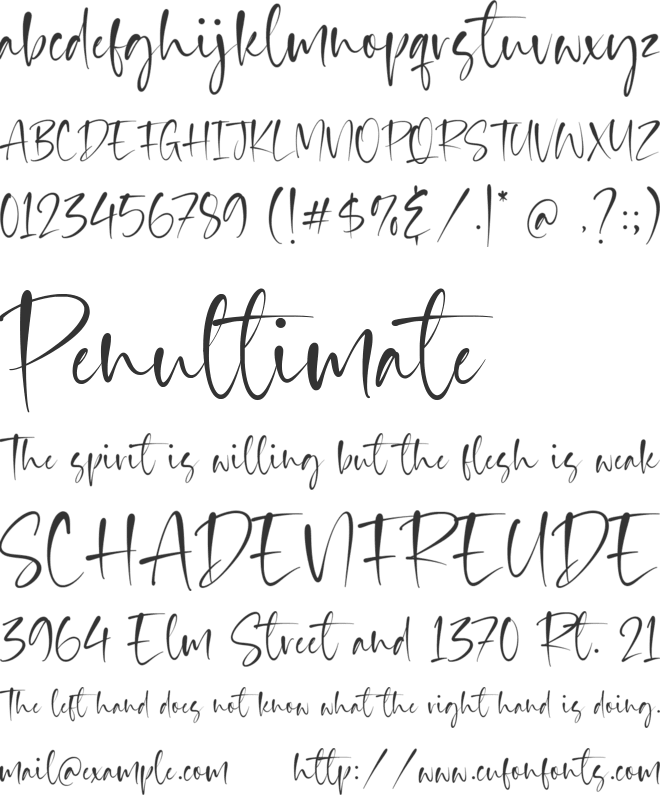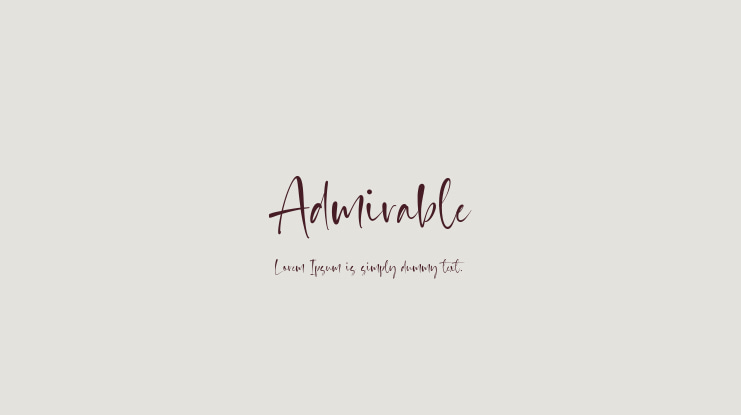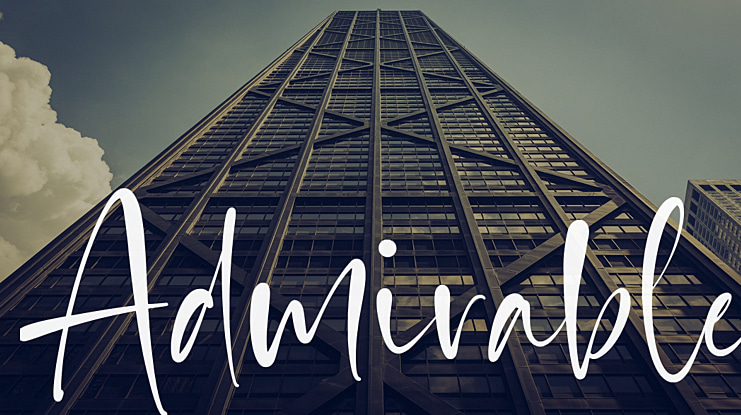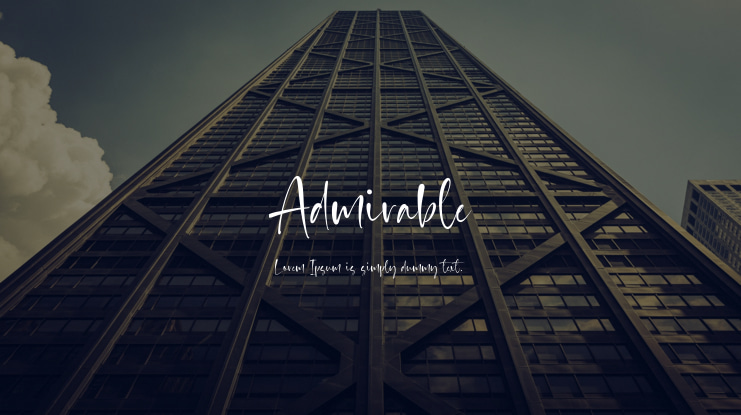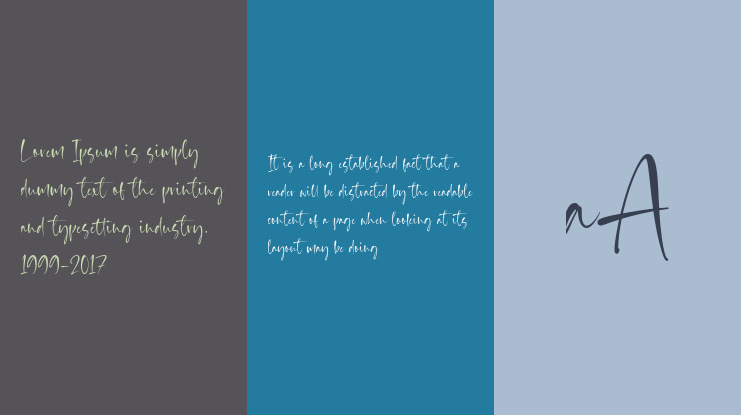
Admirable Font
Introducing by Balpirick Studio.
Admirable is a Modern Handwritten Font.
Whether you’re using it for crafts, digital design, presentations, or making greeting cards, this font has the potential to become your favorite go-to font, no matter the occasion!